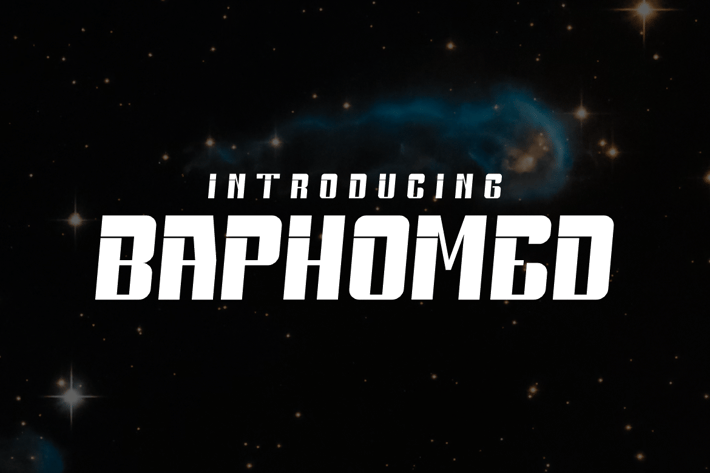
Baphomed - Tech & Future Font
Baphomed Font is unique . Ready to use for your design like labeling, movie sceen, poster, movie title, gigs, album covers, logos, and much more.